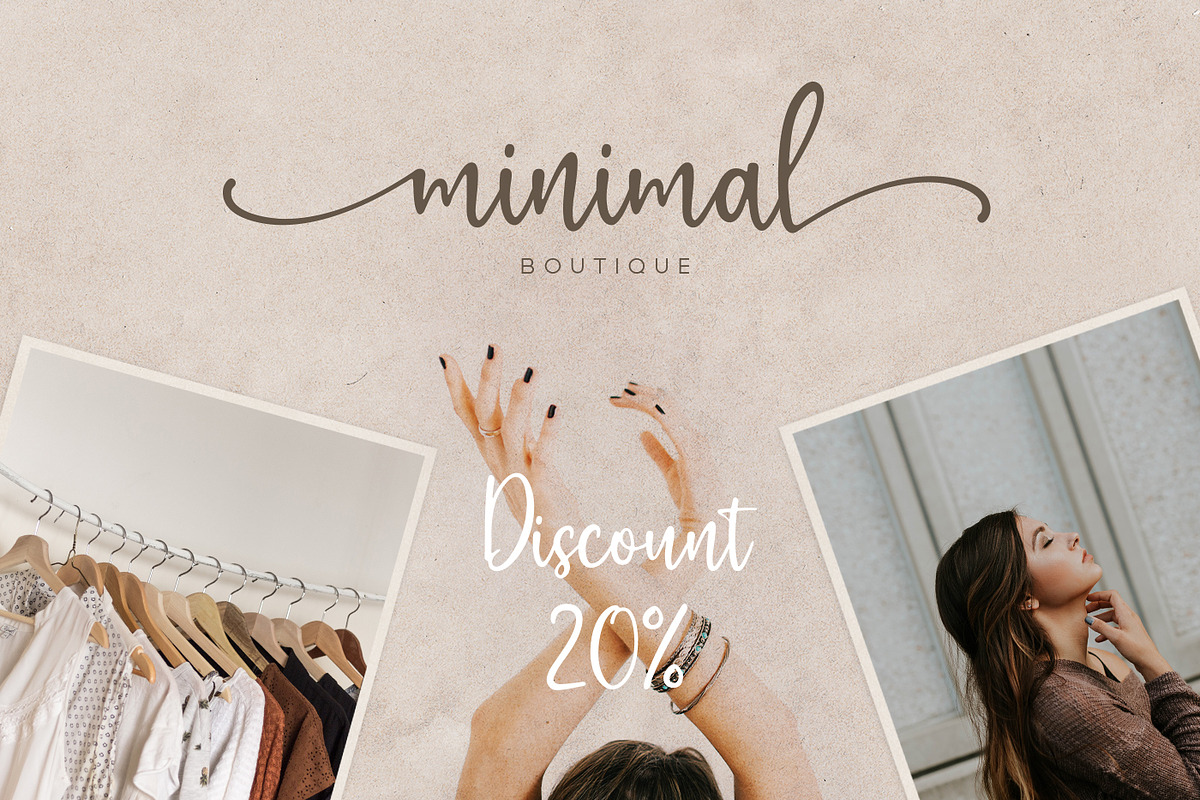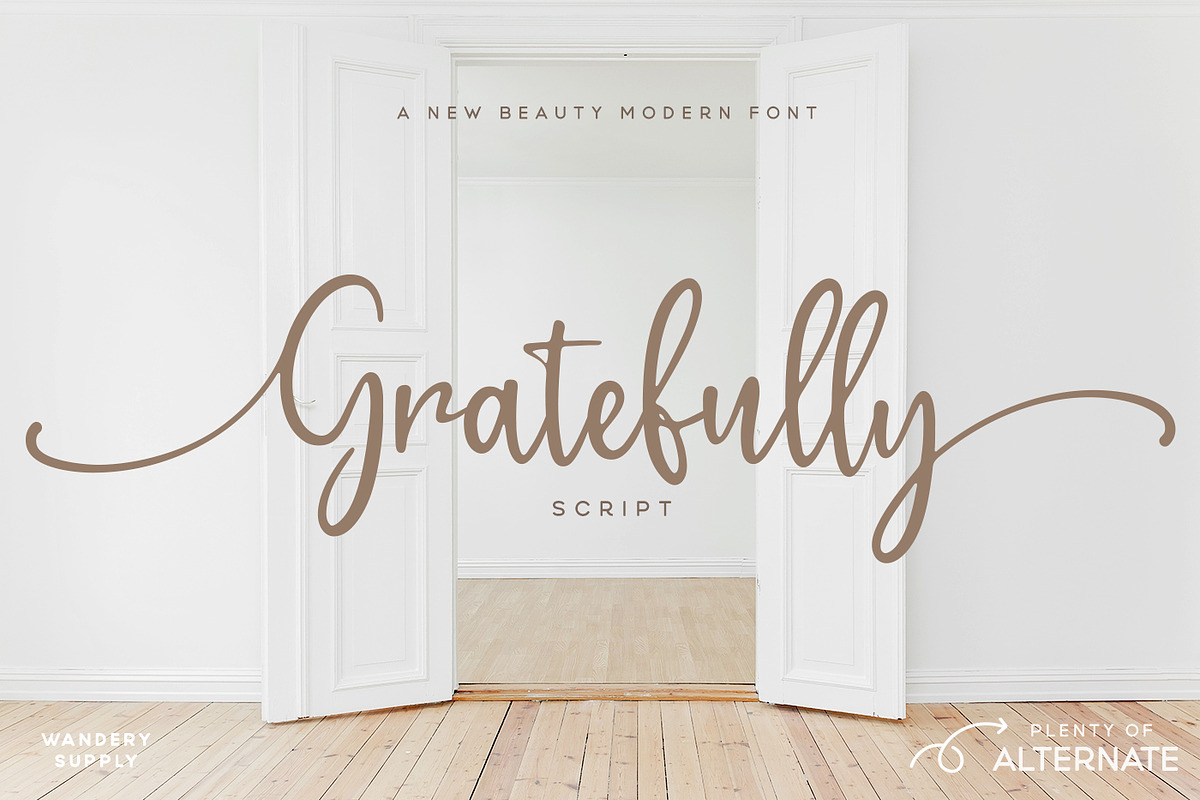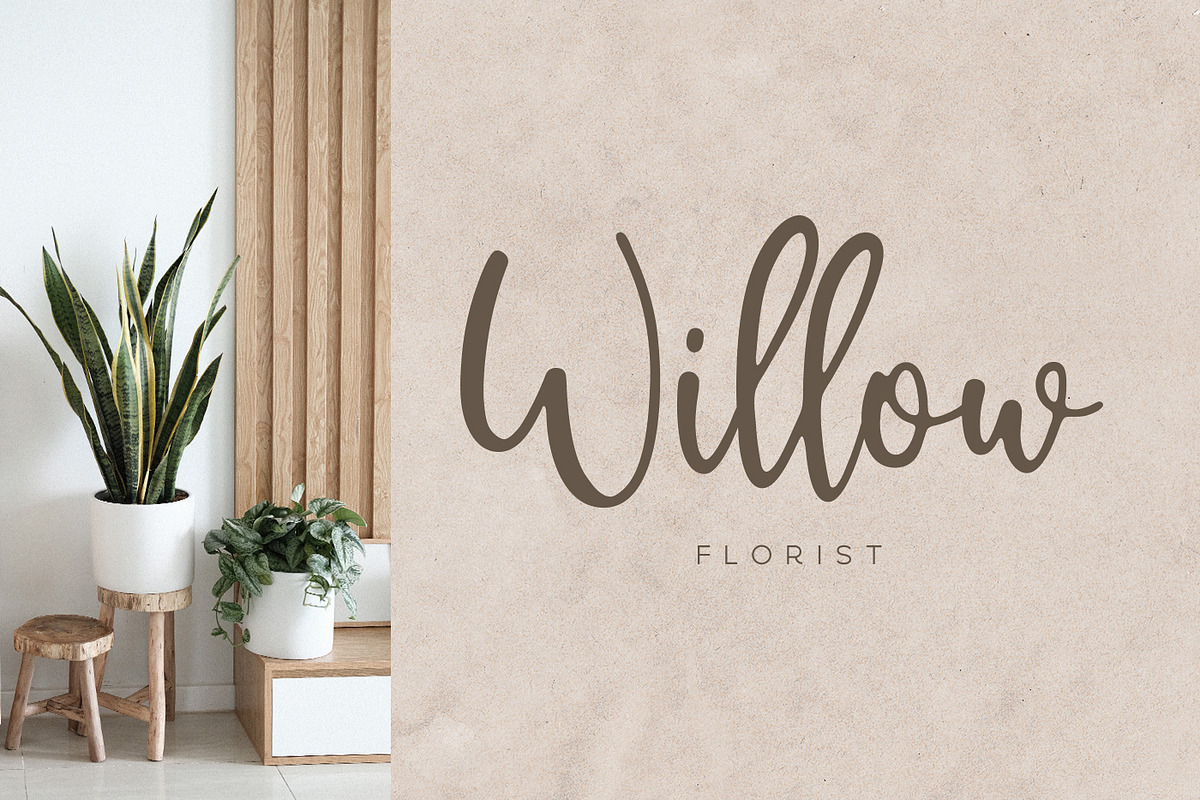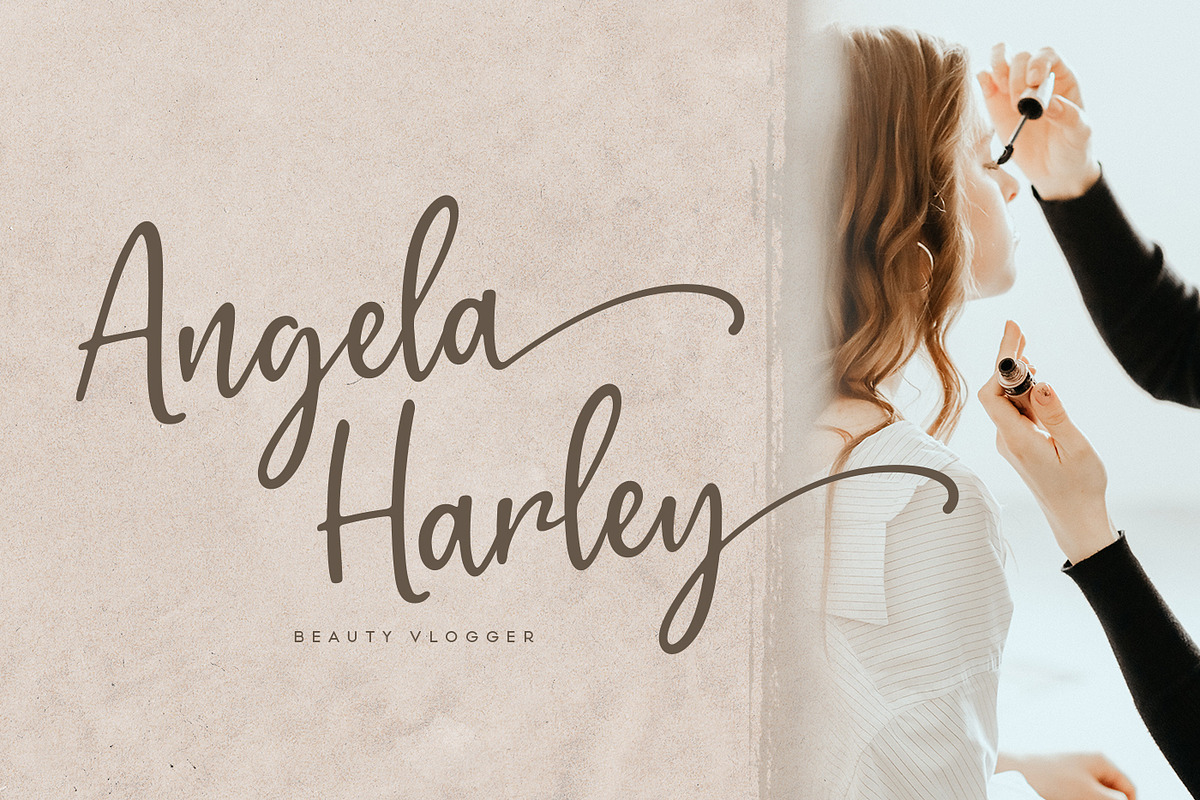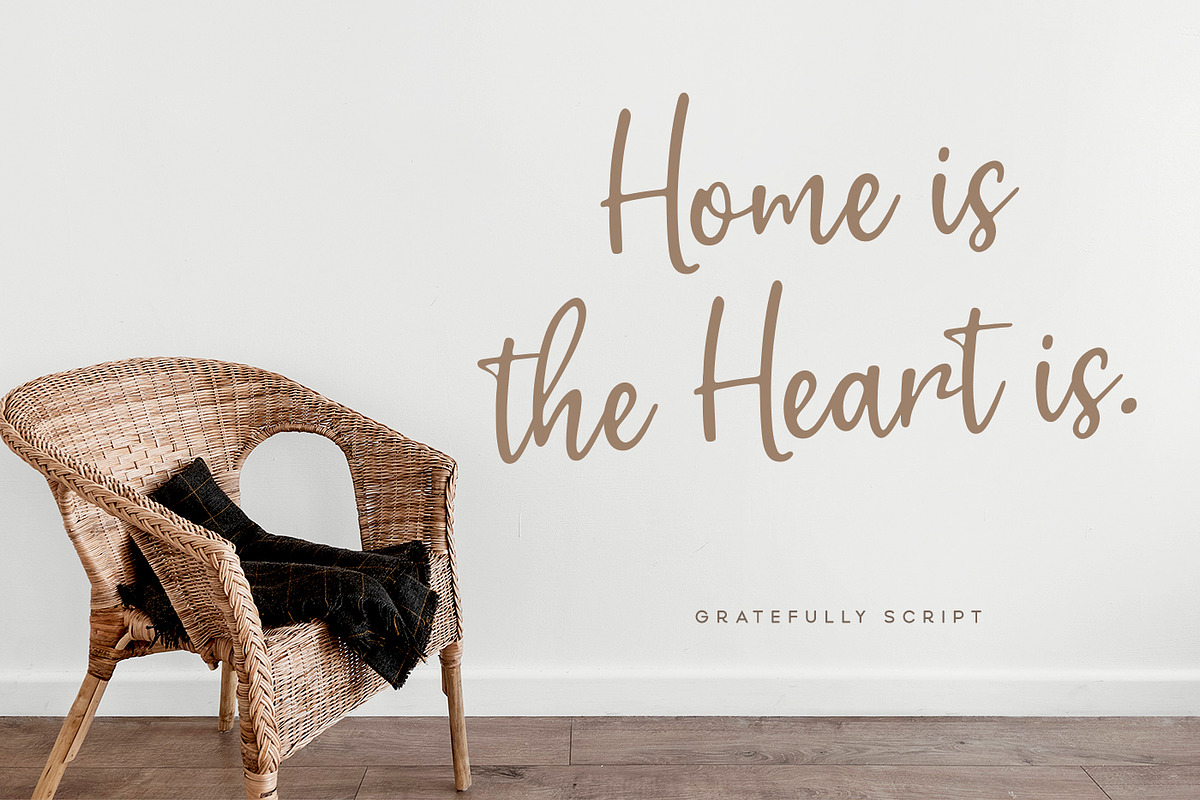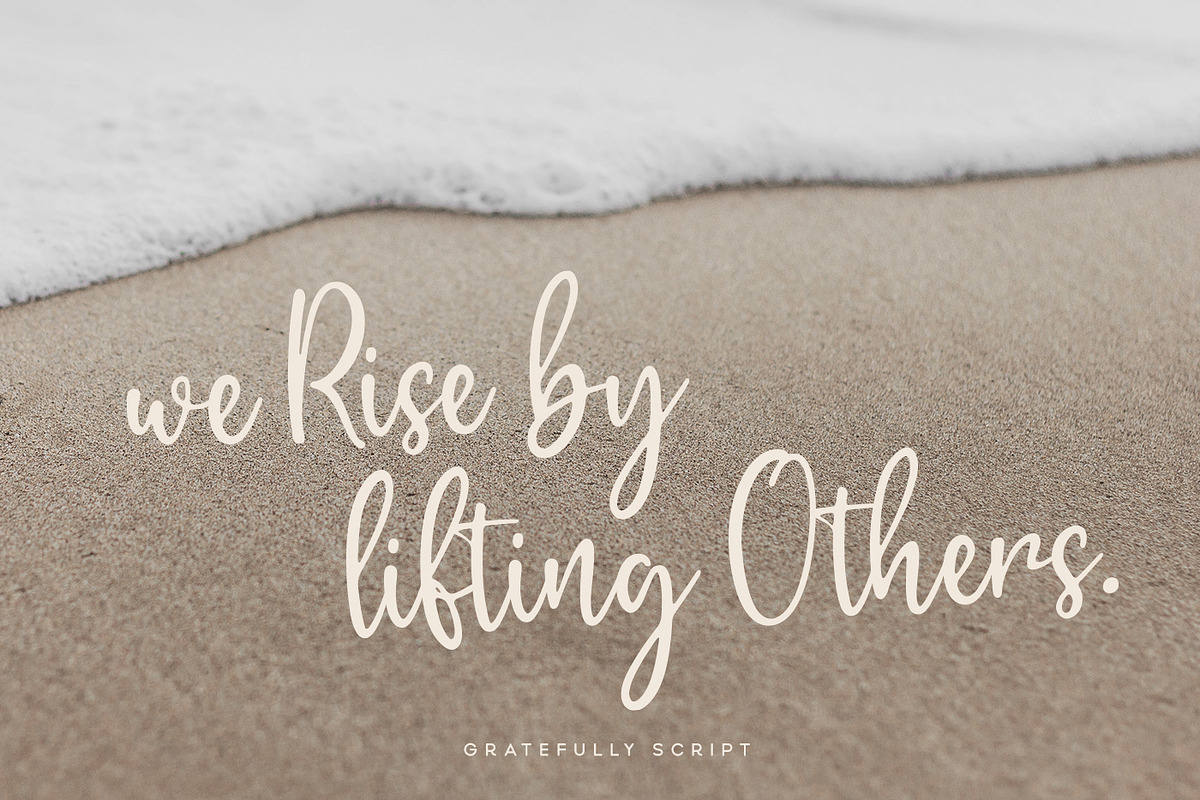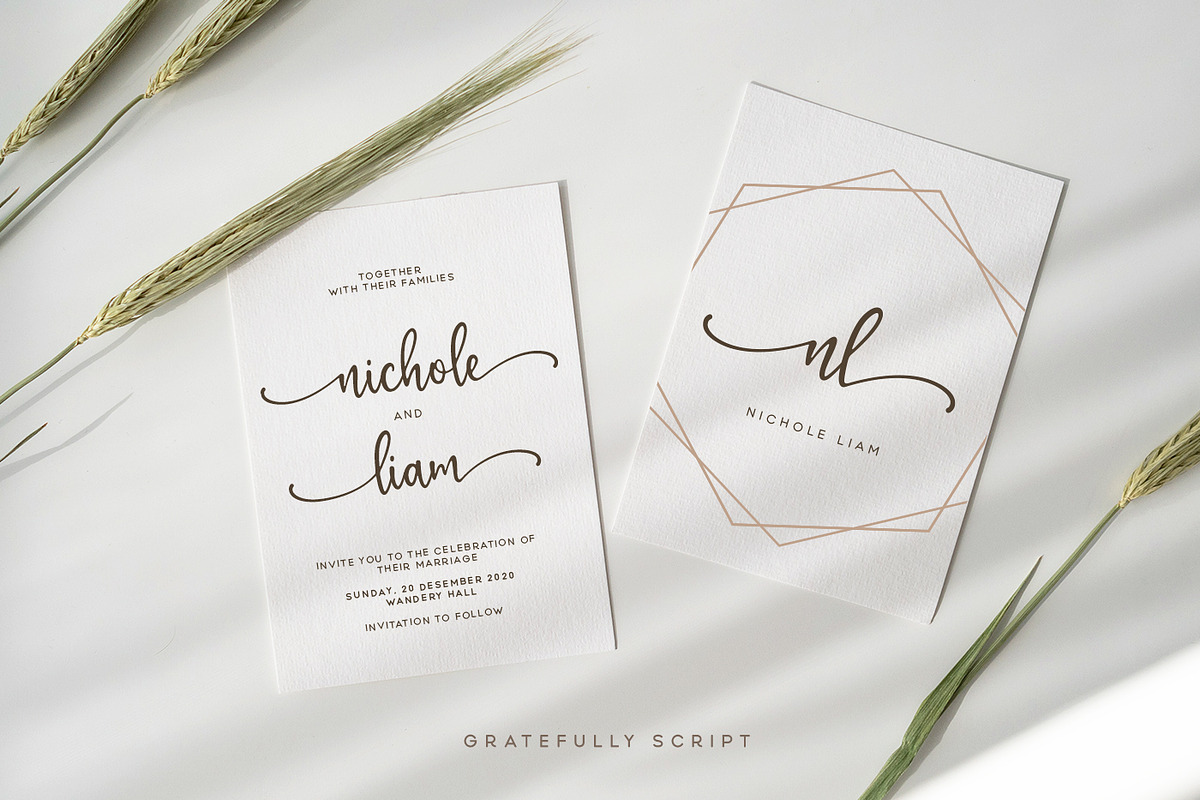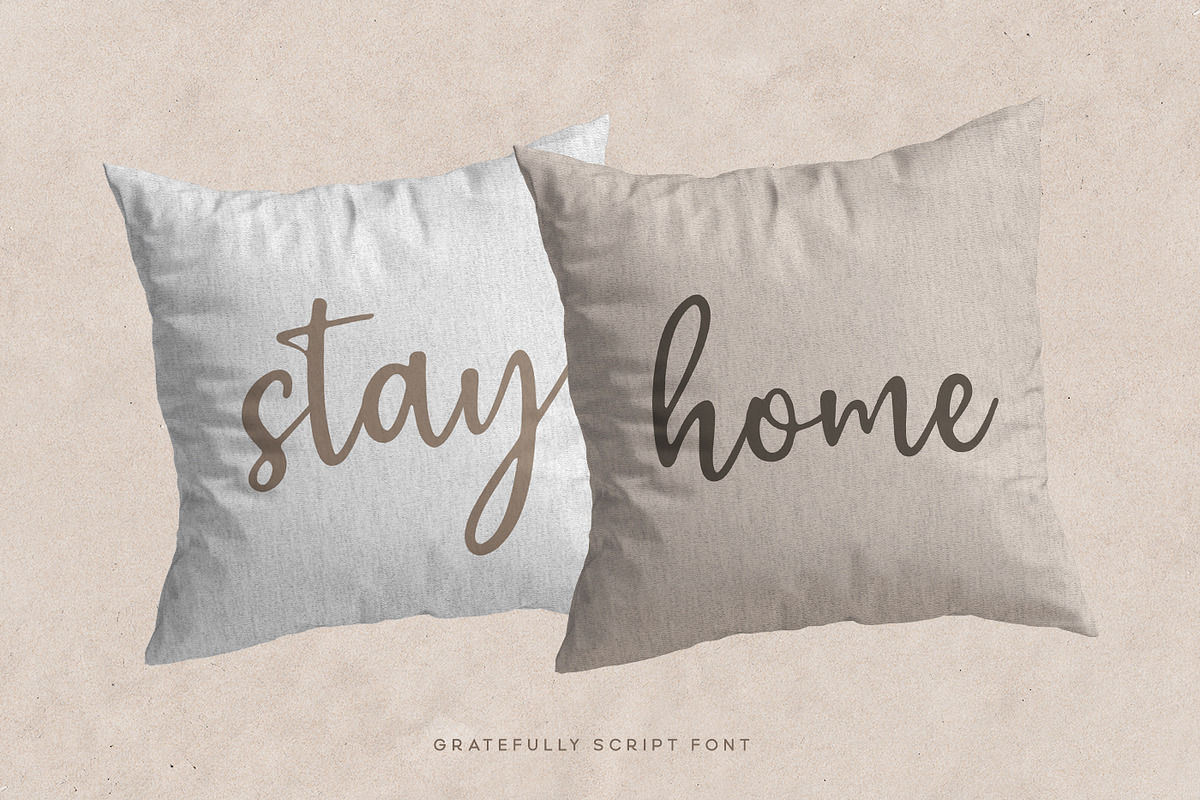
Gratefully Script Font
Gratefully Script with Titlings and Finalize Characters
Gratefully Script is a minimalist, modern and beauty script typeface. Come with plenty of Alternates Characters like Uppercase/Lowercase Titlings Characters and Lowercase Finalize Characters.
Gratefully Script is perfect choices for people looking for clean, elegant, beauty design styles.
Titlings Uppercase Character
Titlings Lowercase Character
Finalize Lowercase Character